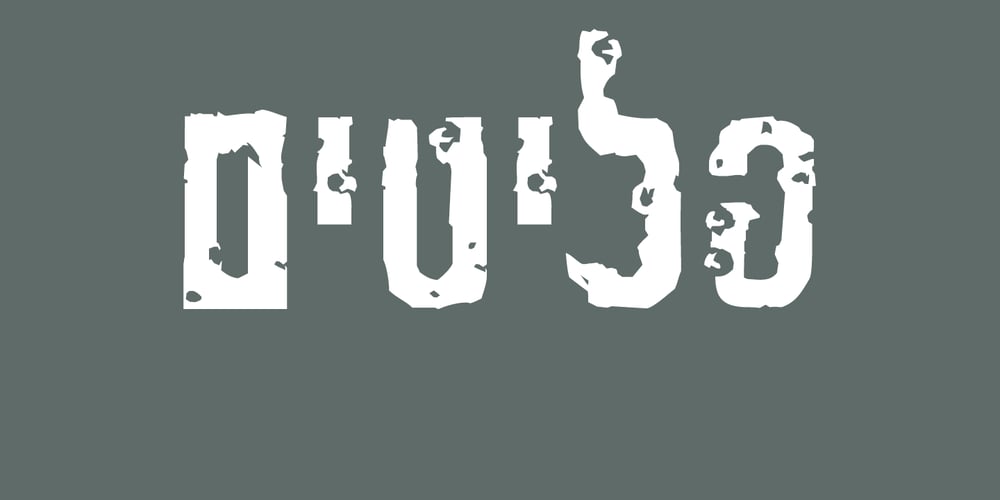
Guns MF
Guns MF font
Guns MF Font Family was designed by Orna Pinhasov and published by Masterfont. Guns MF contains 1 styles and family package options. Mysterious and dirty is your next title for an horror movie.